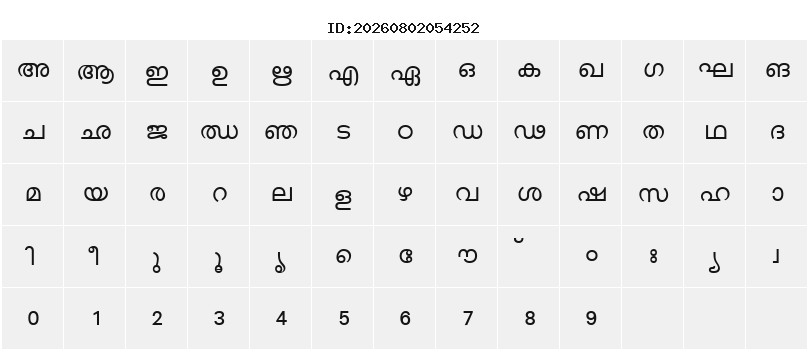
ML-TTKarthika Preview
• Font Name: ML-TTKarthika
• Font ID: CDAC:ML-TTKarthika Normal
• Full Font Name: ML-TTKarthika Normal
• Version: 1.0 Tue Oct 31 15:17:19 1995
• PostScript Name: ML-TTKarthika Normal
About ML-TTKarthika.ttf
ML-TTKarthika.ttf is a modern, elegant sans-serif font designed for ultimate readability and visual harmony. Perfect for branding, headlines, web design, and print materials.